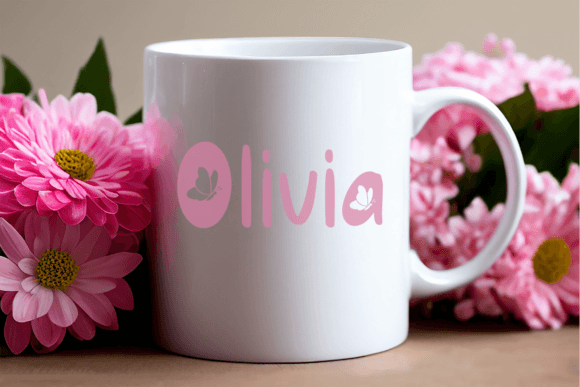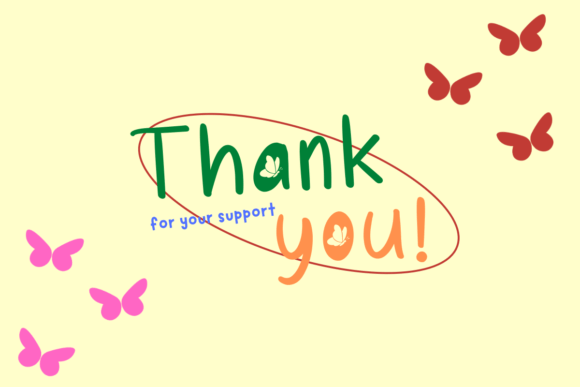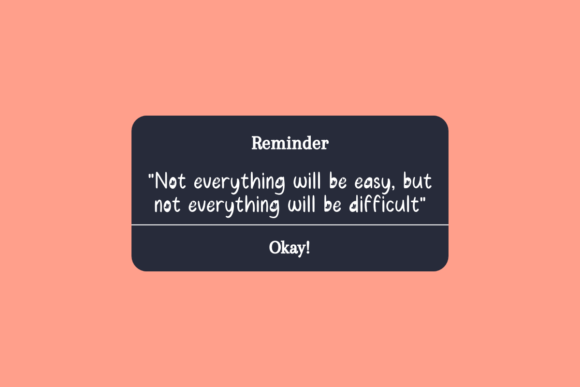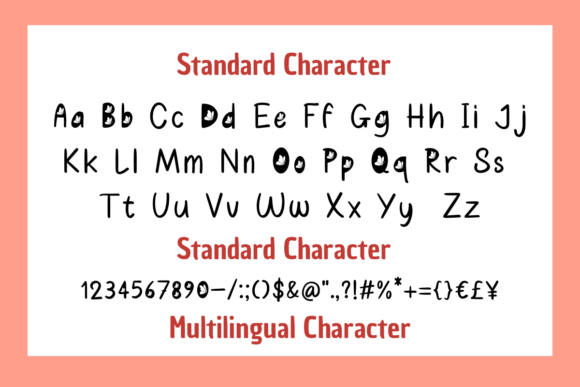
Spreading Joy, One Letter at a Time
As a designer, have you ever found yourself stuck in a creative rut, searching for the perfect font to capture the essence of your project? Perhaps you’re working on a children’s book, a social media campaign, or a product label that requires a touch of warmth and playfulness. I know I have!
| 👤 Author | Perkasya Akram |
That’s why I’m thrilled to introduce the Better Fly Font, a new handwritten font that embodies the carefree spirit of butterflies. With each letter carefully crafted to convey a sense of joy and simplicity, this font is perfect for designers who want to add a pop of personality to their projects. Whether you’re a seasoned pro or just starting out, the Better Fly Font is sure to bring a smile to your face and a touch of magic to your designs.
Better Fly Font Key Features
- Font Family: Better Fly Font offers a unique, modern sans-serif design with multiple weights and styles.
- Unique Characteristics: Better Fly Font features a distinctive rounded edge and subtle curve design, giving it a friendly and approachable feel.
Designer Review: Better Fly Font
Overall, I’d say the Better Fly Font is a decent addition to any designer’s toolkit. Here are some things that ✨ really shine:
- Unique design: The Better Fly Font has a distinct, playful style that can add a lot of character to a project.
- Flexibility: It comes in a range of weights and styles, making it easy to adapt to different design needs.
- High-resolution: The font looks great at both small and large sizes, ensuring it will scale well in various contexts.
However, I do have some concerns:
- ⚠️ Limited legibility: At very small sizes, the font can become difficult to read, especially for those with vision impairments.
- ⚠️ Not ideal for body text: While it’s great for headings and titles, the Better Fly Font may not be the best choice for large blocks of text.
In conclusion, the Better Fly Font is a solid choice for designers looking to add some personality to their work. While it may have some limitations, its unique design and flexibility make it a valuable addition to any toolkit. With careful consideration of its strengths and weaknesses, you can use it to create some truly eye-catching designs.
Tips for Getting the Most Out of Better Fly Font
For optimal results, use Better Fly Font in conjunction with bold or italic styles to create visual interest.
Experiment with different font sizes and colors to create a unique visual effect.
Combine Better Fly Font with other creative elements, such as graphics and images, to create a visually appealing design.
Better Fly Font is ideal for:
Graphic design projects, such as brochures, posters, and business cards.
Web design projects